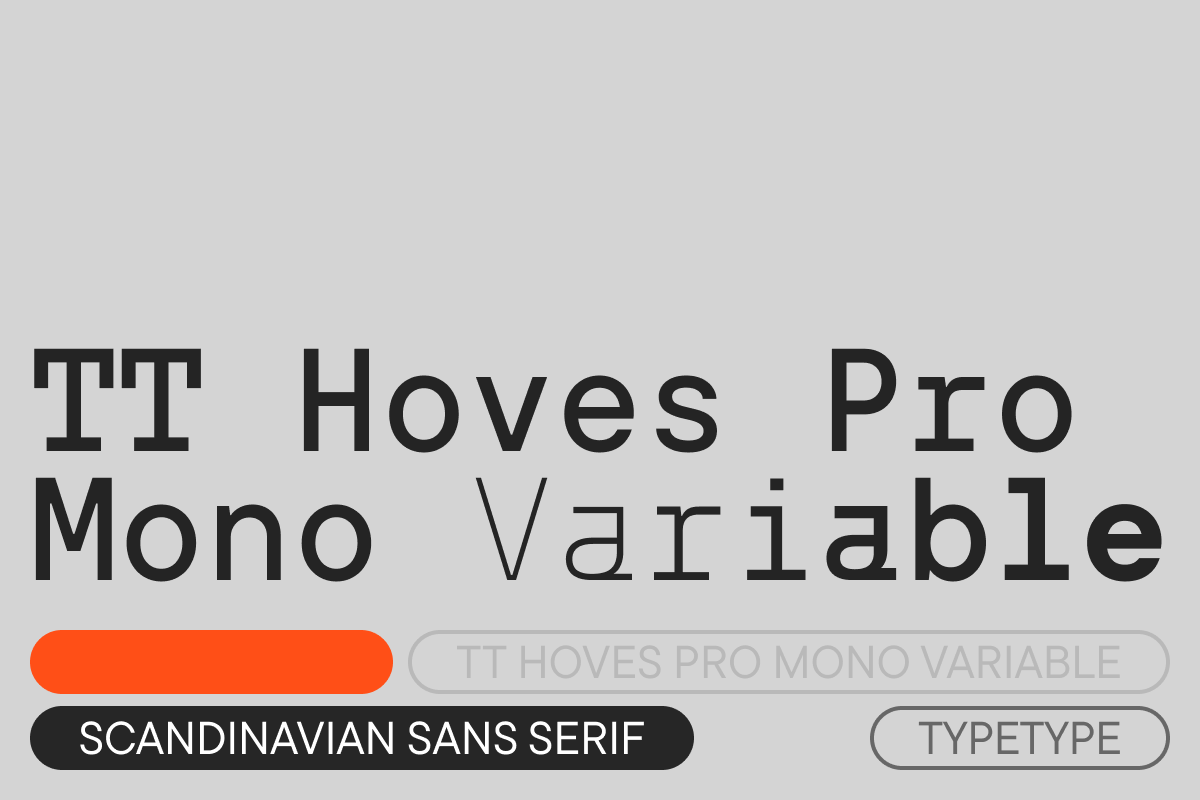
TT Hoves Pro Mono VF
TT Hoves Pro is one of the studio’s bestsellers included in our core set of versatile fonts. It is a Scandinavian sans serif with a neutral but recognizable character. One of this font’s key characteristics is a visual lack of contrast. The name TT Hoves is formed by combining the initial syllables of the words "horizontals" and "verticals." It emphasizes the dominance of horizontal and vertical strokes in the font’s glyph design.